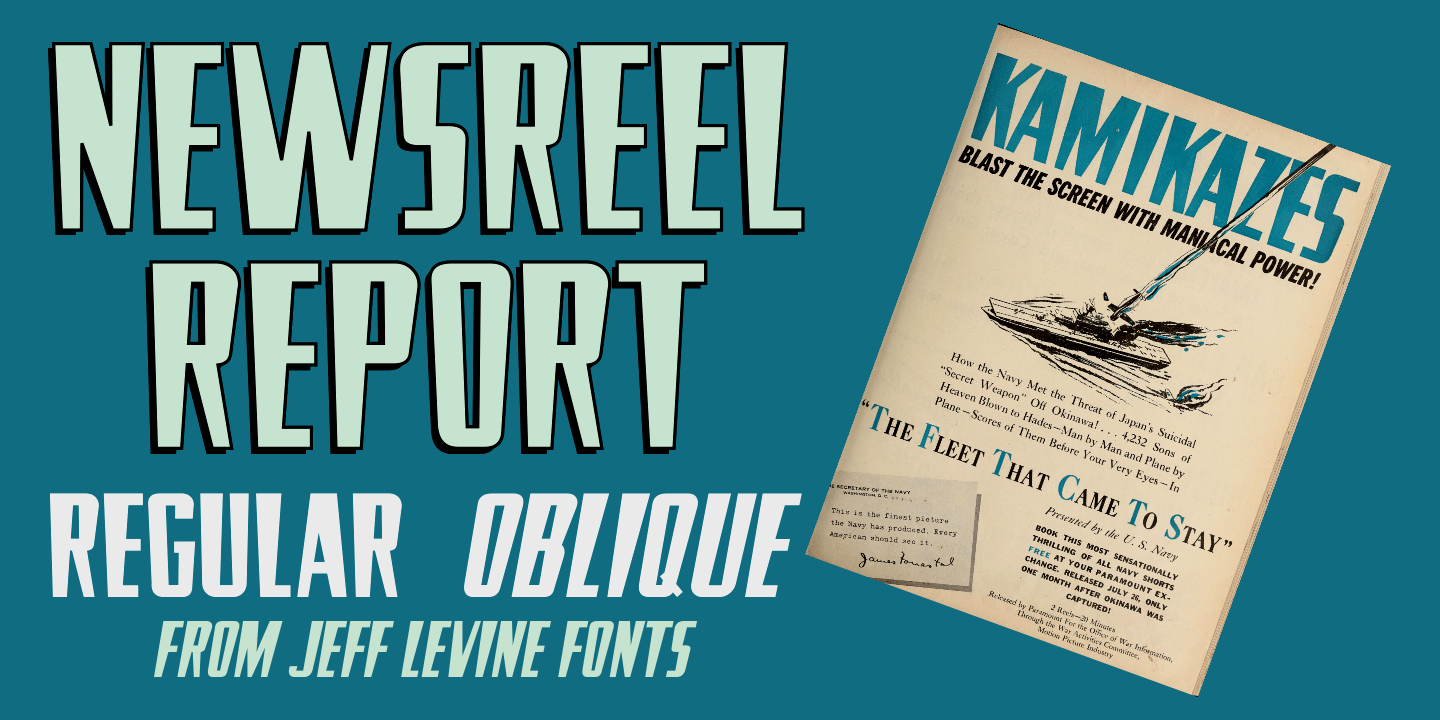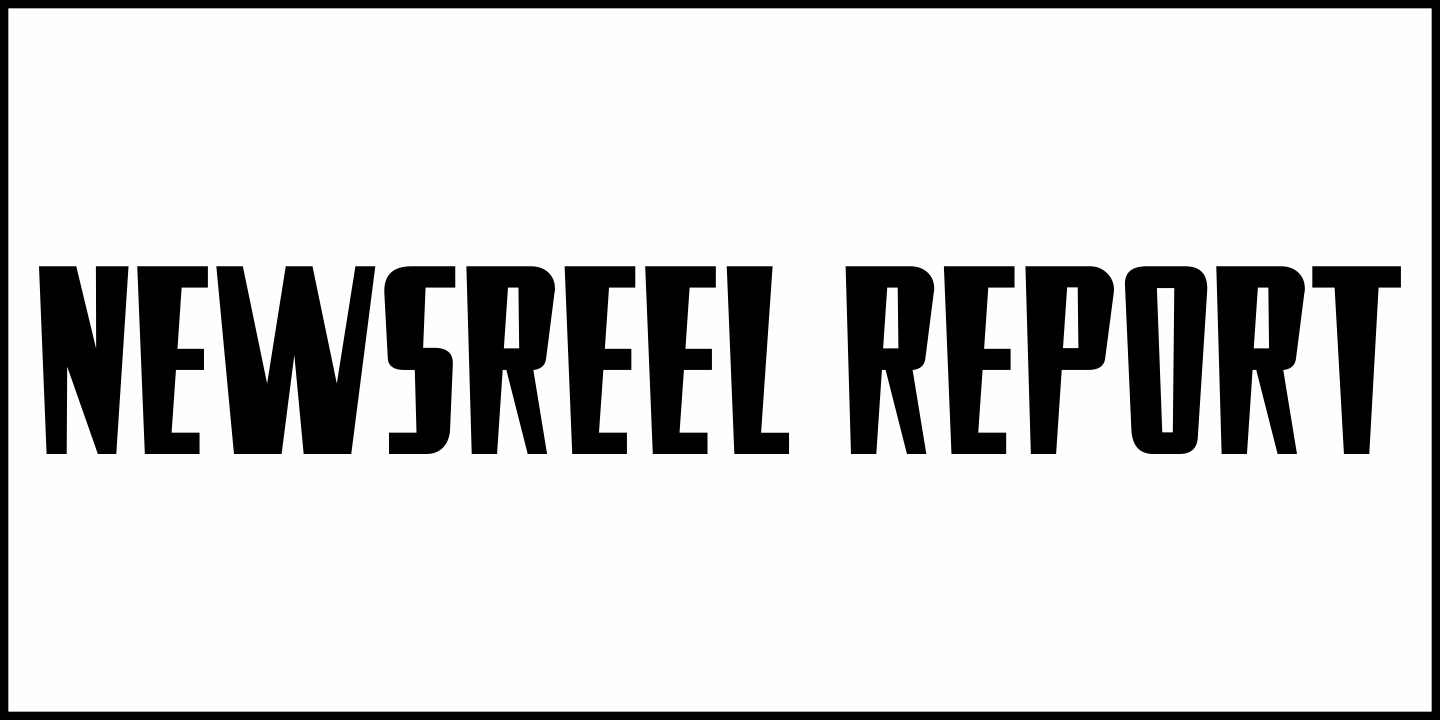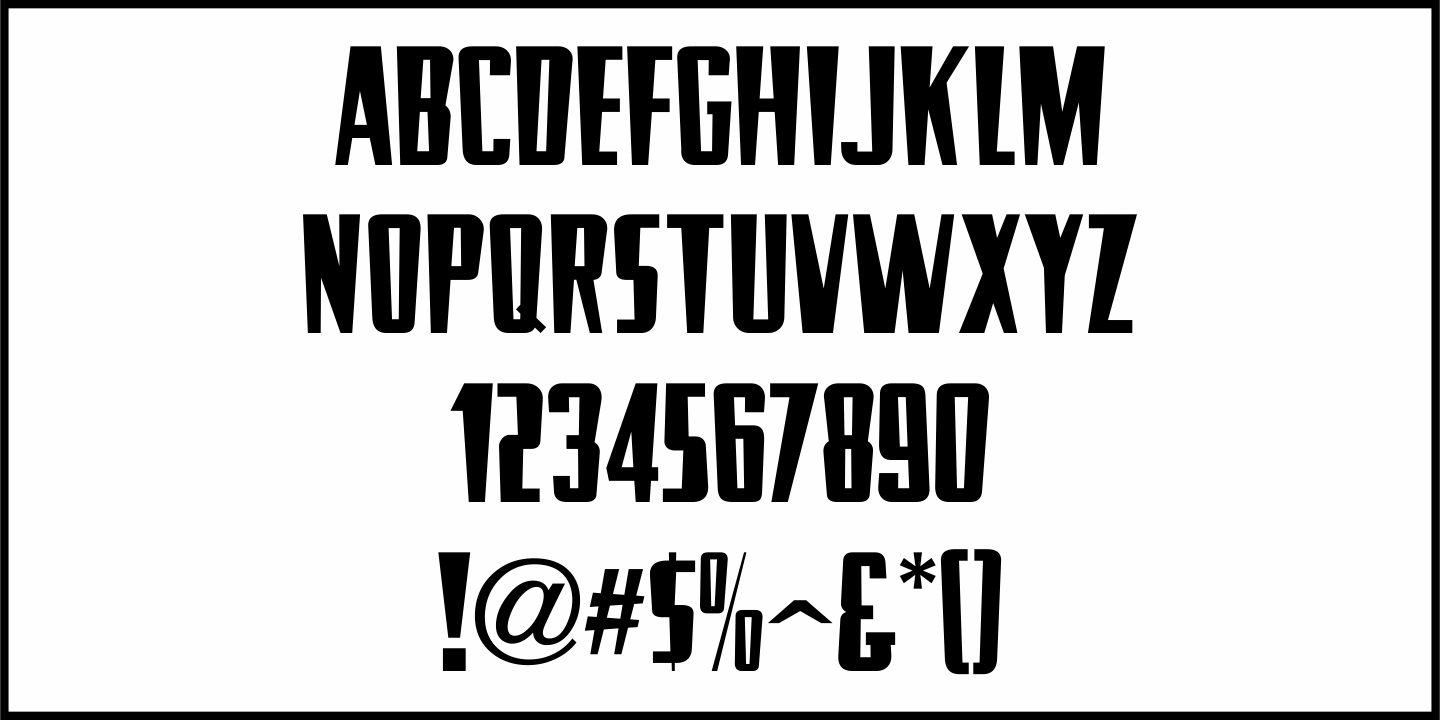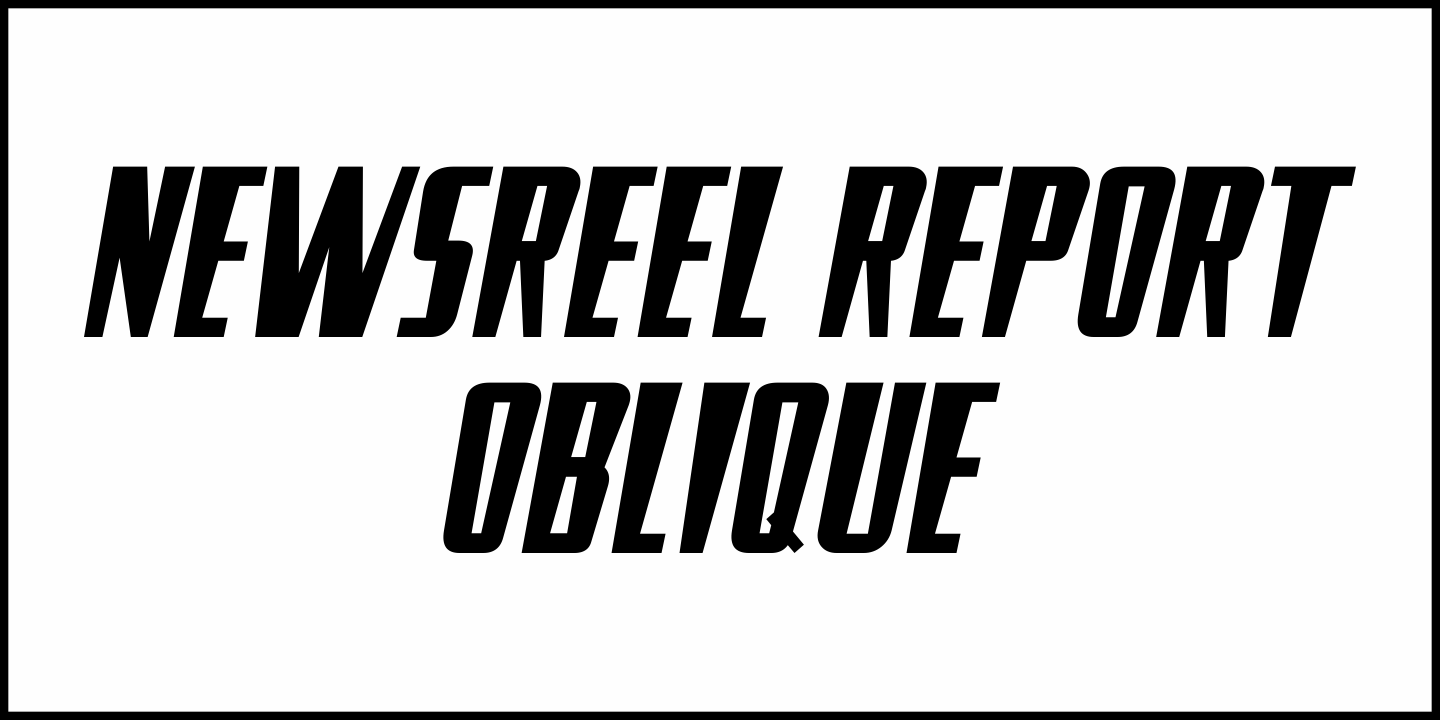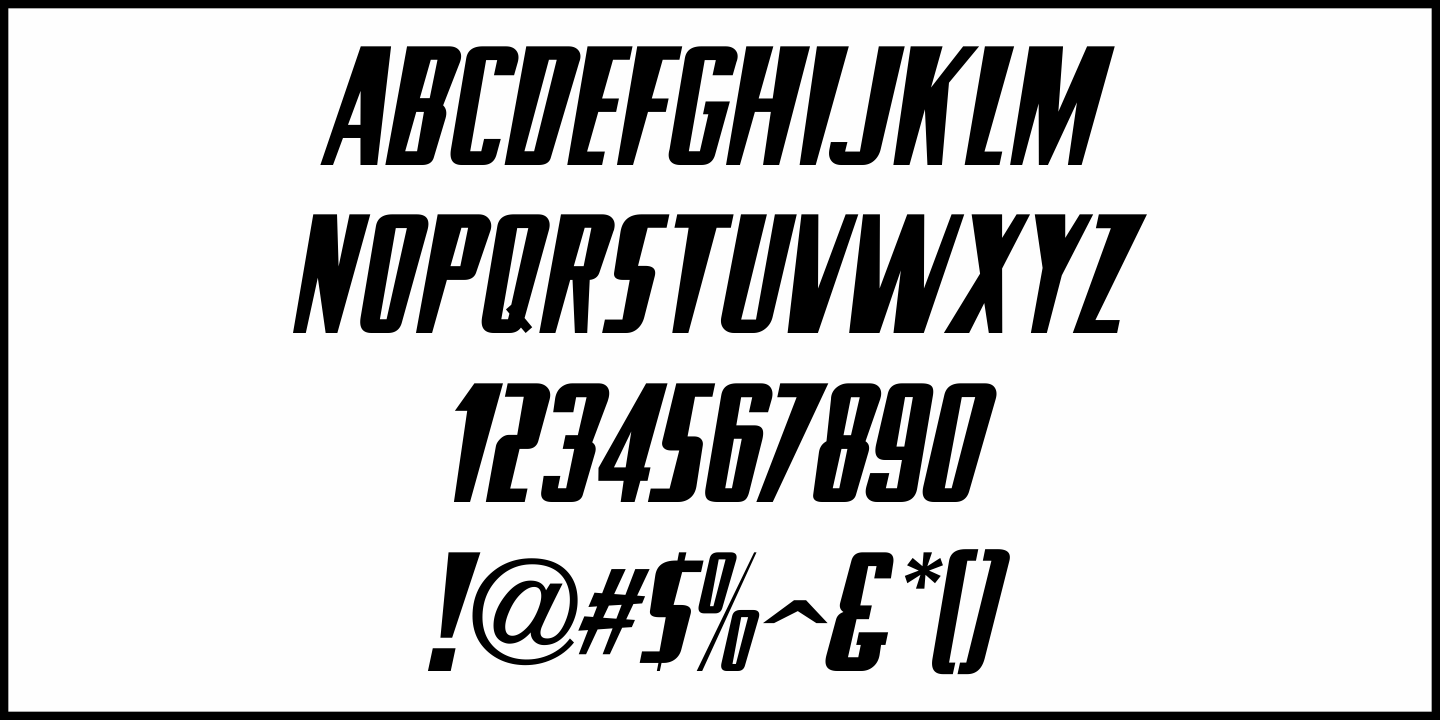
Newsreel Report
The July 21, 1945 issue of Showman's Trade Review carried an ad for a newsreel-style World War II film short called "The Fleet That Came to Stay" with a teaser headline of "Kamikazes".
That single word headline was lettered in a bold, free form sans and served as the basis for Newsreel Report JNL, which is available in both regular and oblique versions.
Because of the novelty shape of the characters, the font is spaced and kerned very tight.